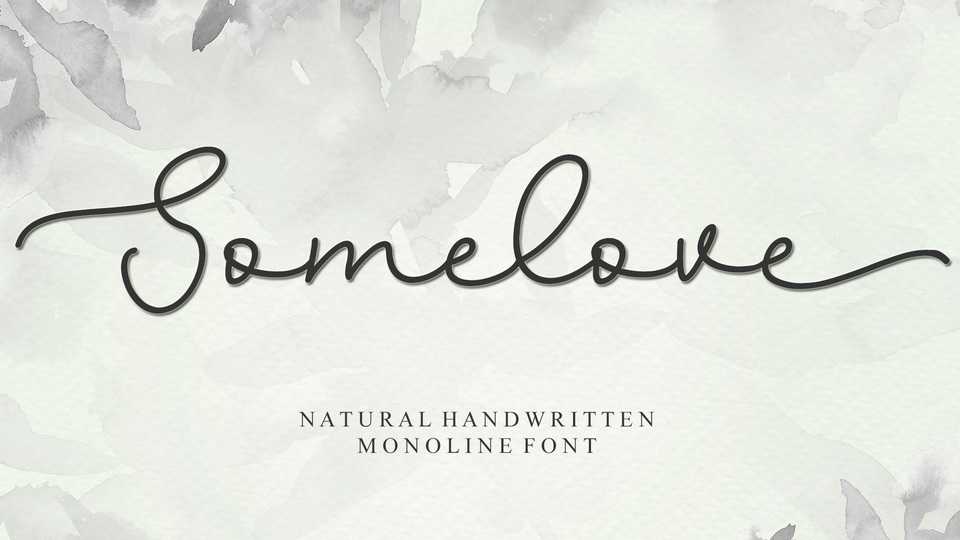
Download Somelove font, a simple and flowing handwritten typeface. This adaptable font will look great on a variety of design ideas. Somelove will add a fun and friendly touch to each of your projects.
Designer: Letterafa Studio